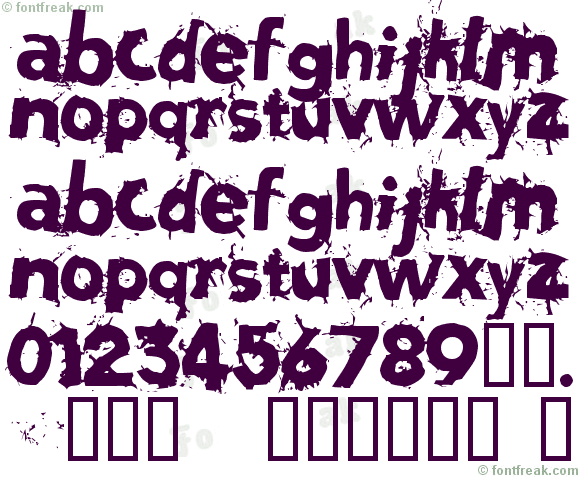
Salvation
Salvation by Rob Dobi is a distinctive display font that captures attention with its unique, gritty character. This font is characterized by its bold, rough edges and a slightly distressed appearance, making it an ideal choice for projects that require a touch of edginess. The stroke weight is varied, creating a dynamic contrast that enhances its visual impact, while the spacing between characters is thoughtfully designed to ensure readability without sacrificing style. The font's decorative elements contribute to its rebellious aesthetic, making it stand out in any design context.
Salvation is particularly well-suited for a range of creative applications. It can be effectively used for movie posters, where its bold presence can convey a sense of drama and excitement. Additionally, it is a fantastic option for music album covers, capturing the essence of alternative and rock genres. Graphic designers may find it perfect for branding projects, especially for businesses that want to communicate a youthful and unconventional vibe. Furthermore, it can be utilized in promotional materials for events like festivals, where a vibrant and attention-grabbing font is essential.
What sets the Salvation font apart is its ability to marry style with versatility. Its unique aesthetic not only grabs attention but also conveys a message of authenticity and creativity. For those in search of a bold typeface, the Salvation font free download offers an exciting opportunity to elevate their design work with a truly remarkable font.